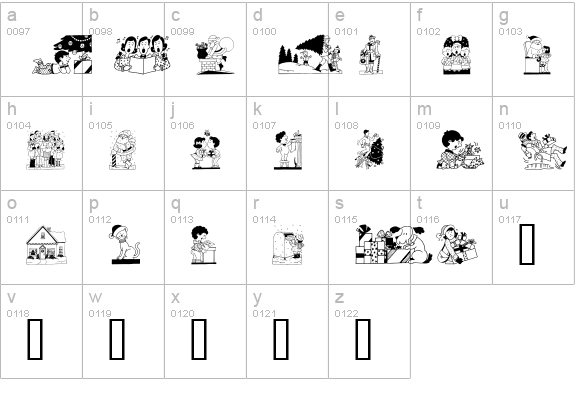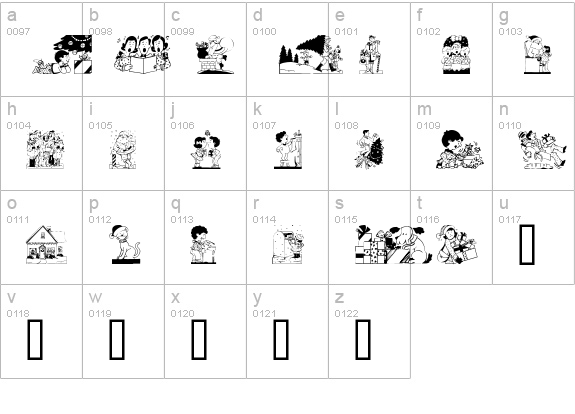
GE Comical Christmas Font Details
The GE Comical Christmas font is a whimsical and festive typeface that captures the playful spirit of the holiday season. With its quirky and fun design, this font is perfect for adding a touch of humor to your Christmas projects and designs. Whether you're creating greeting cards, party invitations, or festive banners, the GE Comical Christmas font is sure to bring a smile to everyone's face. Best of all, this delightful font is available for free download at FontsMarket.com. Simply visit the website and add this charming font to your collection without any cost. Spread joy and laughter this holiday season with the GE Comical Christmas font!